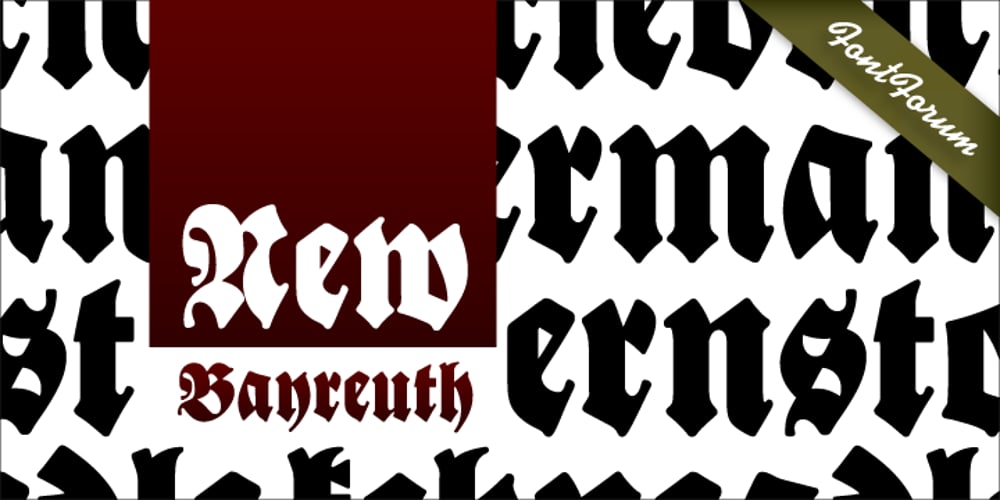
New Bayreuth
New Bayreuth font
New Bayreuth Font Family was designed by Ralph M. Unger and published by URW Type Foundry. New Bayreuth contains 1 styles and family package options. New Bayreuth is a new and improved version of the original Bayreuth font (Friedrich Hermann Ernst Schneidler, 1932). New Bayreuth was reworked, redesigned, completed and digitally remastered by Ralph M. Unger for URW++, based on specimen taken from old font catalogues. Besides Ganz Grobe Gotisch and Legende, New Bayreuth is the third type design by Schneidler that URW++ brought back to (digital) life.